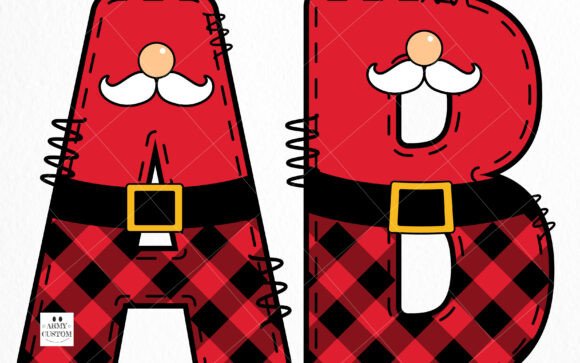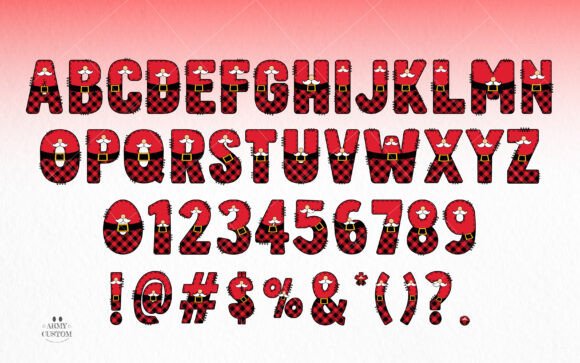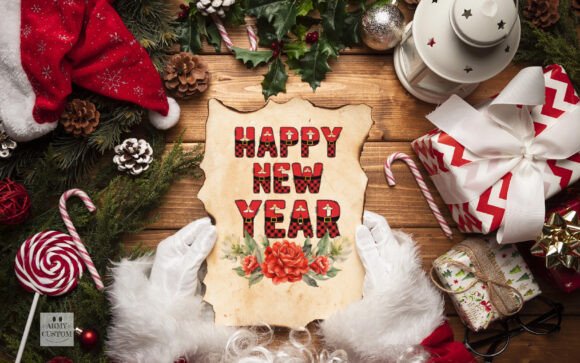
Introduction to Santa Plaid Army Font Font
Fonts play a crucial role in design, and the Santa Plaid Army Font font is a typeface that brings both character and versatility to any project. Whether you’re working on a branding project, a website, or a print design, the Santa Plaid Army Font font offers a unique style that can elevate your work.
Elevate your festive projects with the delightful βChristmas Fontβ.
Imbued with a sense of whimsy, this font is a playful addition to your holiday design toolkit Its jovial style makes it an ideal choice for creating vibrant holiday decorations or adding a dash of merriment to any design project.
Key Features of Santa Plaid Army Font Font
Why Choose Santa Plaid Army Font Font?
The Santa Plaid Army Font font is more than just a typeface β it’s a design tool that helps you communicate your message with style and clarity. Its unique character set and versatile design make it suitable for a wide range of applications, from elegant invitations to bold headlines.
With its carefully crafted letterforms and balanced proportions, the Santa Plaid Army Font font ensures readability and visual appeal across all mediums.
What makes Santa Plaid Army Font font special?
The Santa Plaid Army Font font stands out with its unique design, exceptional readability, and versatility across various design applications.